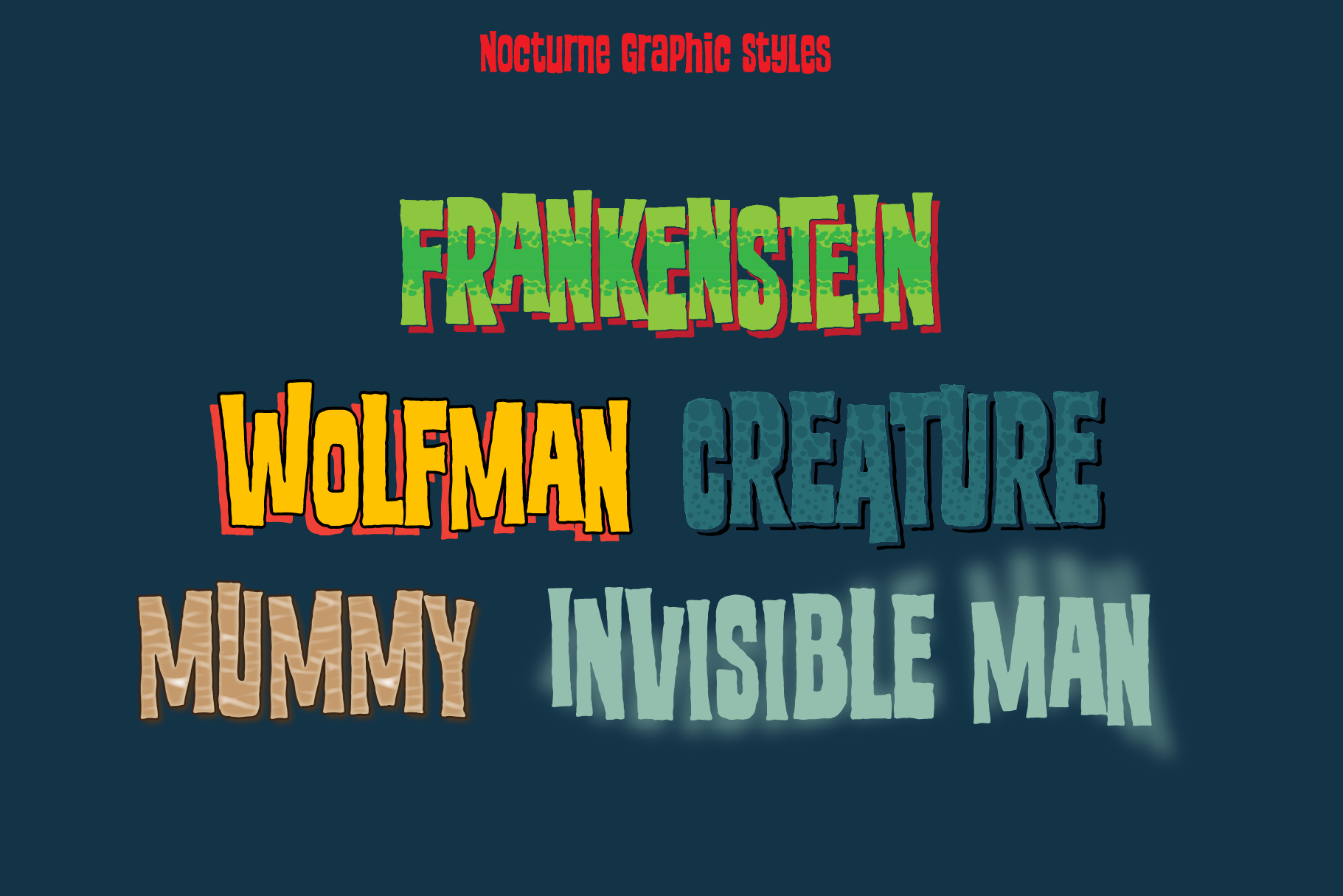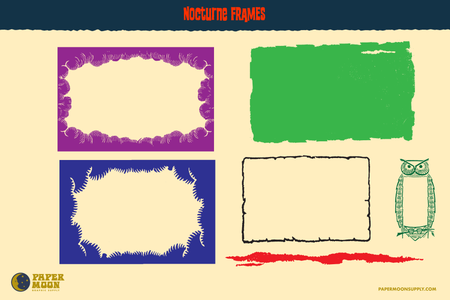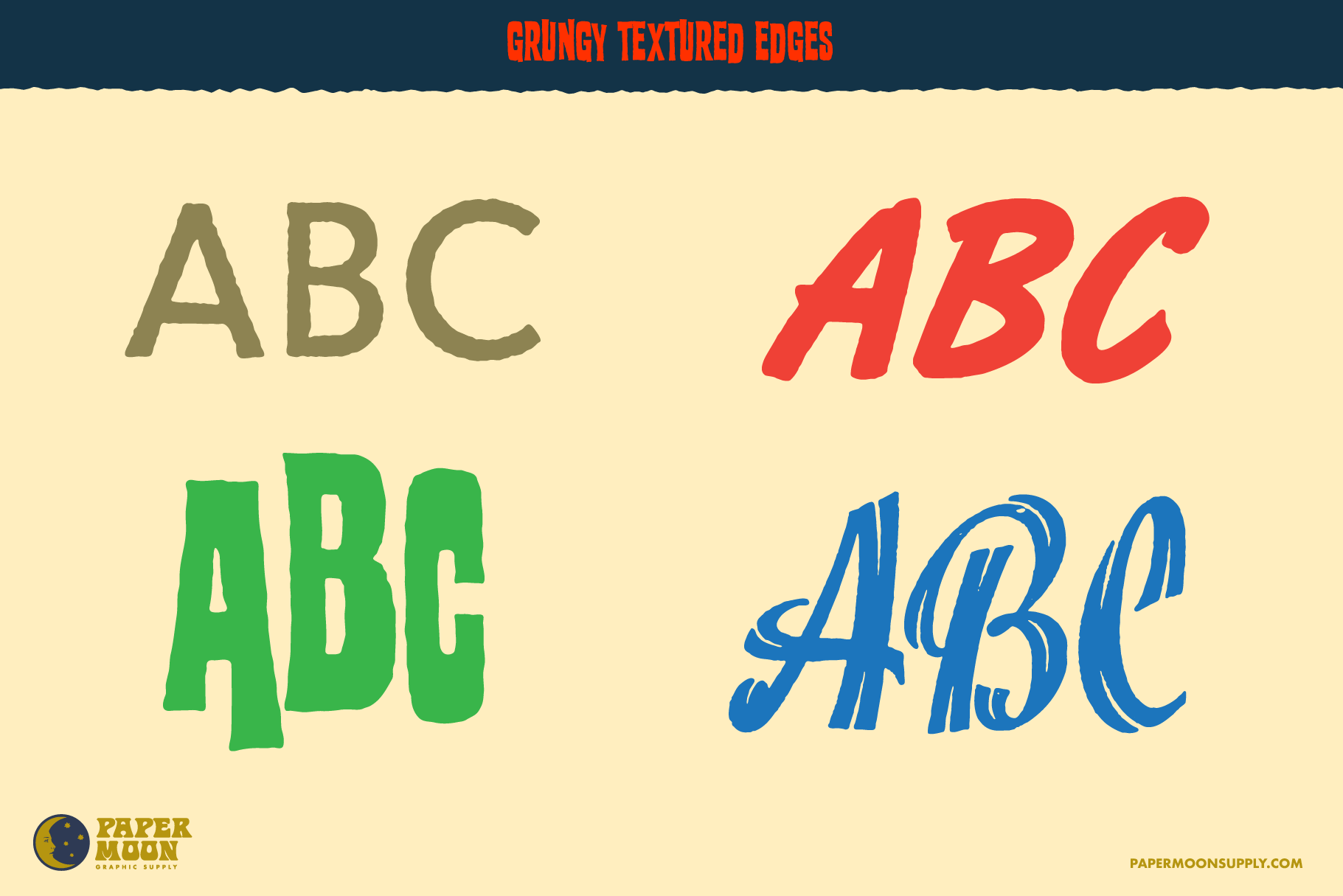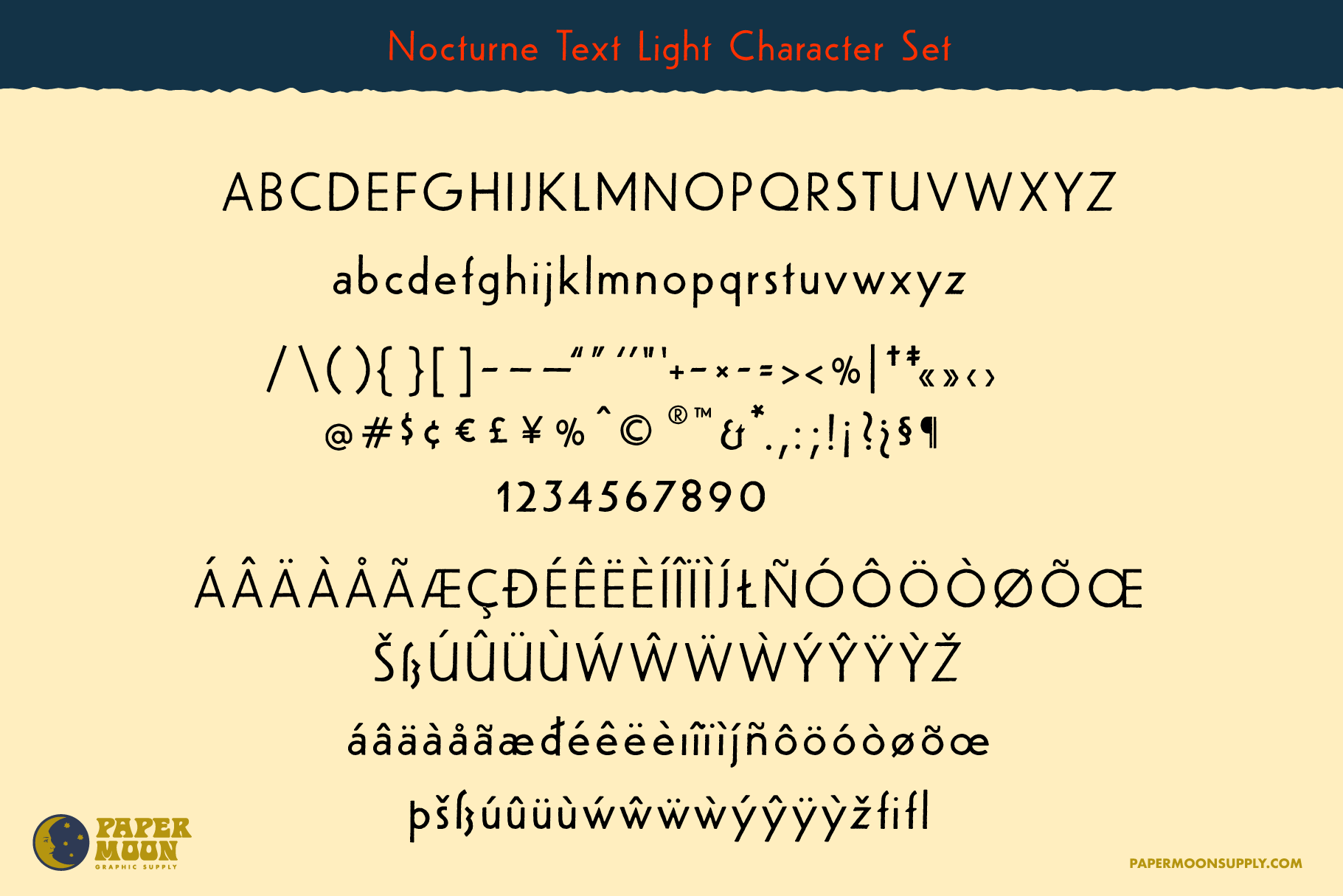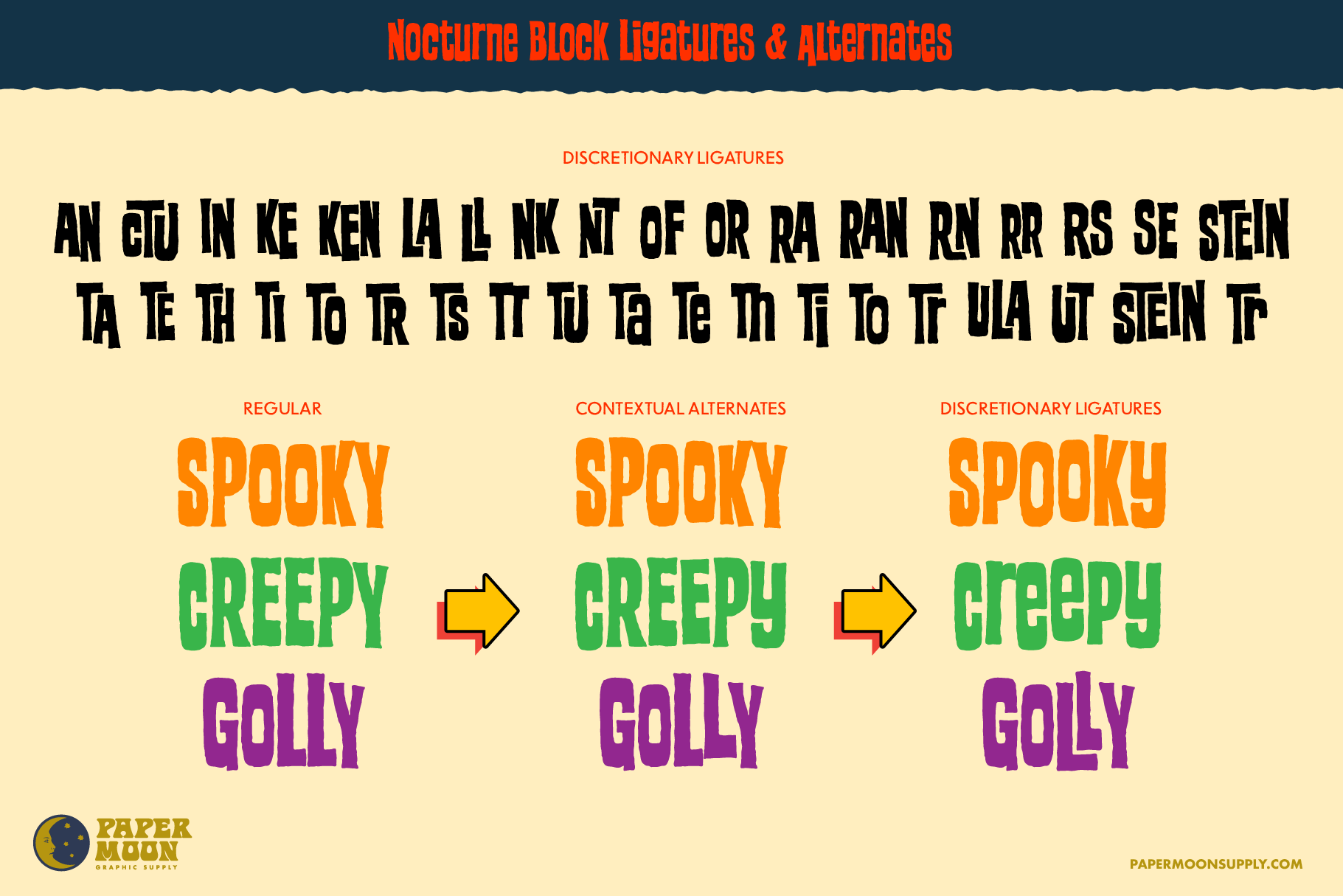
The Nocturne Font Collection
Unlock vintage horror and retro comic nostalgia with The Nocturn Collection—a four-font set designed to add bold, authentic flair to your designs.
This collection includes Brush, Block, Script, and Text fonts inspired by mid-century posters, pulp covers, and hand-lettered signage.
Each style is crafted to capture the spirit of classic horror and Americana, making this a must-have toolkit for creating standout, retro-inspired designs.
• Four Unique Fonts, One Cohesive Collection: The Nocturn Collection is built to mix and match. Use the Brush for hand-drawn energy, Block for bold statements, Script for vintage elegance, and Text (in Light and Medium weights) for clean readability. Perfect for posters, branding, comics, and more.
• Handcrafted Ligatures & Alternates: The Nocturne Block font features ligatures and alternates that mimic vintage printing quirks, letting your text look custom and crafted without extra work.
• Ready-to-Use Graphic Styles: The collection includes preset styles like "Frankenstein" and "Wolfman" for instant themed effects, ideal for horror and retro projects.
• Extensive Multilingual Support: Full character sets with accents and symbols mean you’re covered for projects in multiple languages, without compromising style.
• Four Fonts:
• Nocturne Brush: Energetic, hand-brushed strokes.
• Nocturne Block: Rough, bold, all-caps for high impact.
• Nocturne Script: Elegant, flowing script with retro flair.
• Nocturne Text (Light & Medium): Clean, classic sans-serif for balance.
• Ligatures & Alternates: In Nocturne Block, for an authentic, hand-made look.
• Themed Graphic Styles: Easy-to-apply horror styles—Frankenstein, Wolfman, Creature, and more.
• Bonus Vectors, Frames & Patterns:
• Horror-themed vectors like skulls and ghouls.
• Distressed frames for vintage-inspired titles and posters.
• Starry patterns to evoke comic-book nostalgia.
Whether you’re crafting spooky posters or retro branding, The Nocturne Collection has everything you need for a striking, nostalgic design.
A Standout Collection
I know this is marketed as a horror font collection, but honestly, I think it's just one of the most well-rounded and cost-effective packages that Retro Supply Co has to offer.
The variety and ubiquity of the four fonts on offer here will have you covered for (probably) all of your project needs. One of the best feelings of building a font collection from Retro Supply Co is no longer having to spend time searching high and low for the perfect font. Because I already have it.
I needed a cool font for my Art the Clown tribute and what better than a Retro Supply font.
I used the Nocturne Block font and threw in some Edge and fold over top for good mesure to beat up my work!